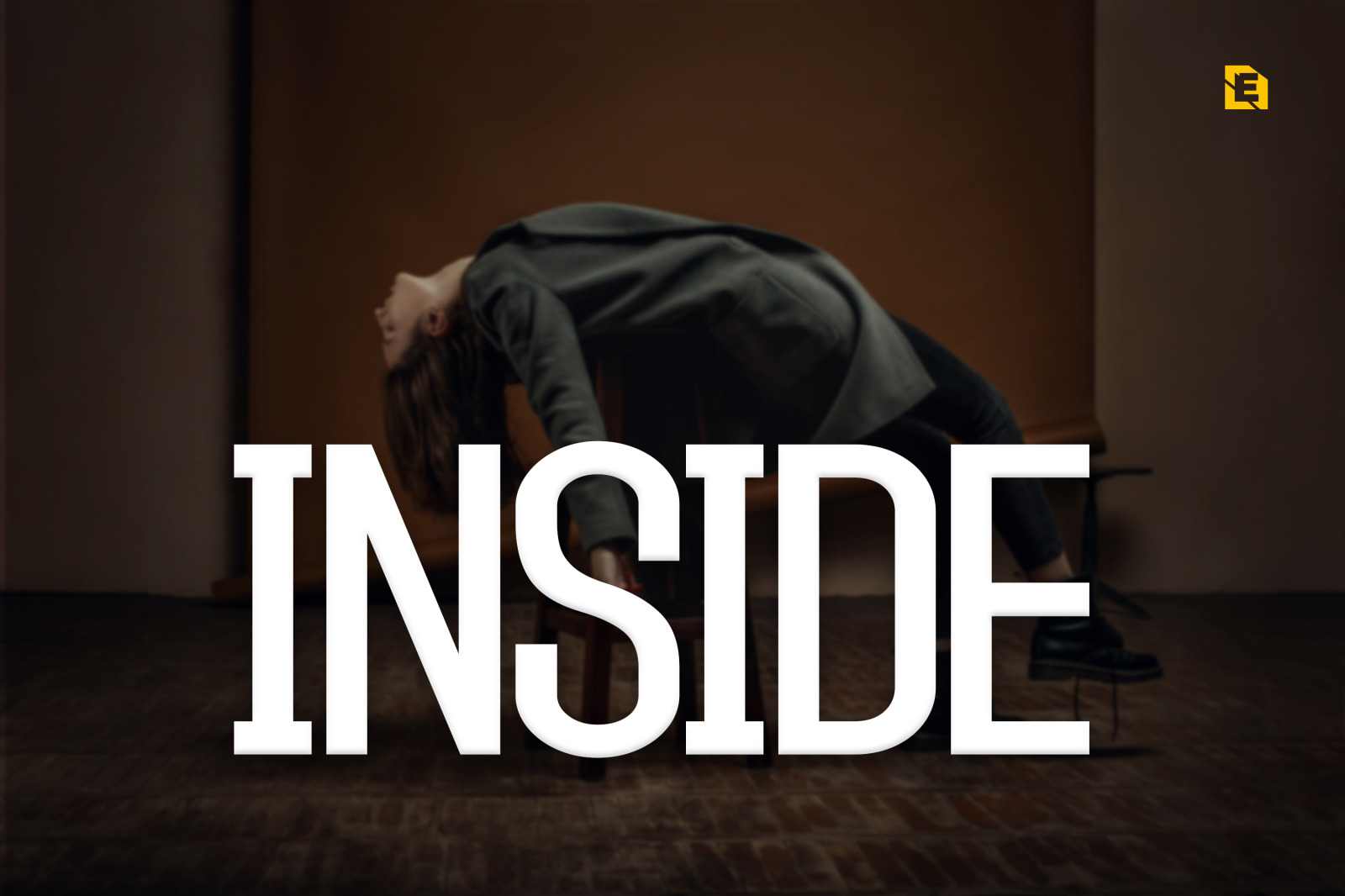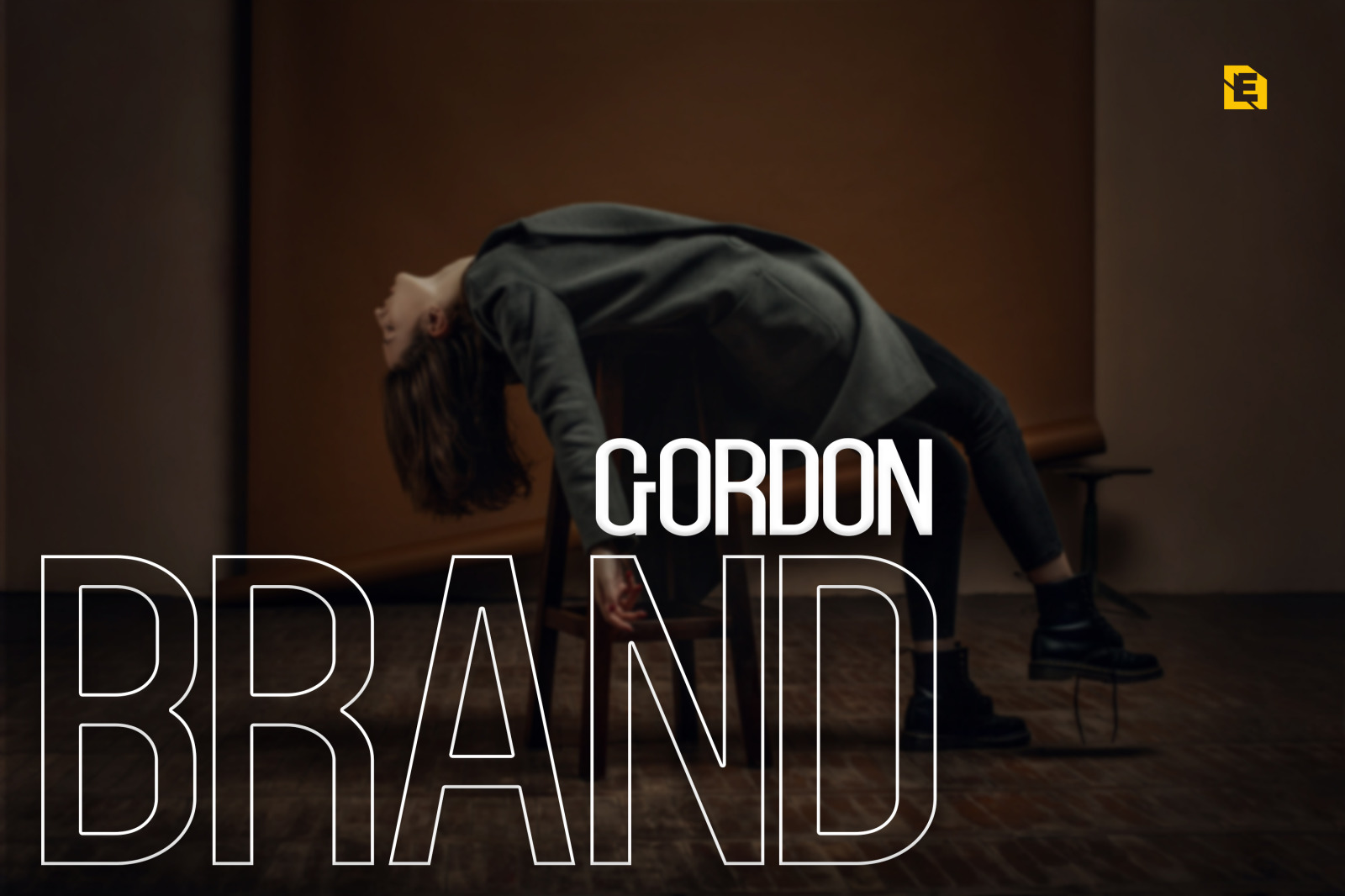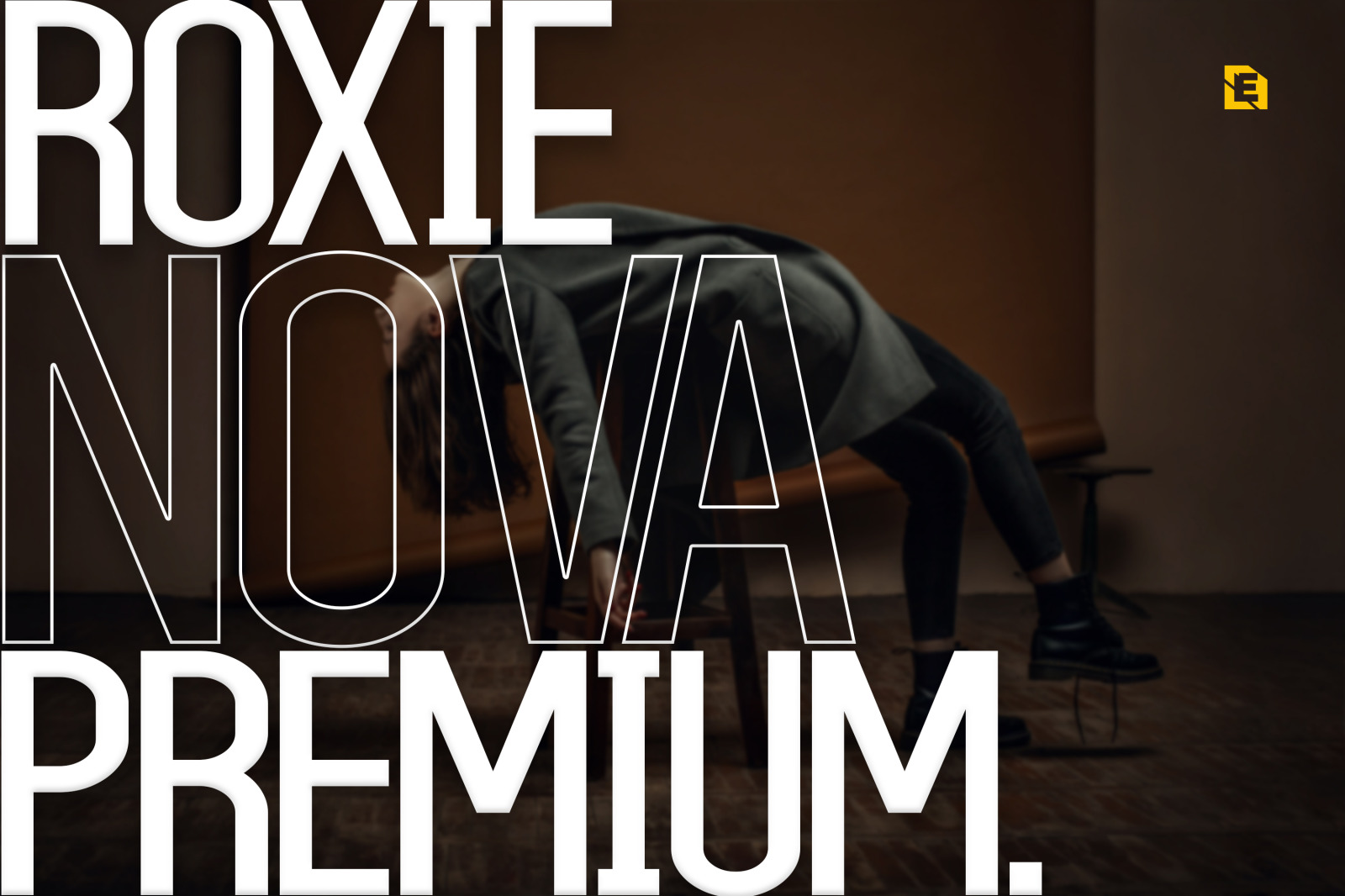
Gordon Font
Introducing new minimal and adaptable sans serif font. Use Gordon font for your designs branding and explore its endless possibilities.
It is designed for optimal legibility. An all caps sans-serif, Gordon makes a statement without making a scene.
Gordon Font works great in branding, logos, headlines, fashion branding, all displays , magazines, while its simplicity allows it to be a useful font for many occasions.